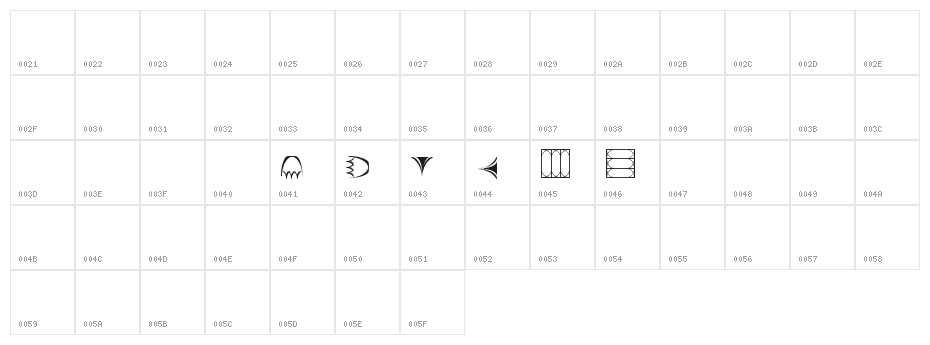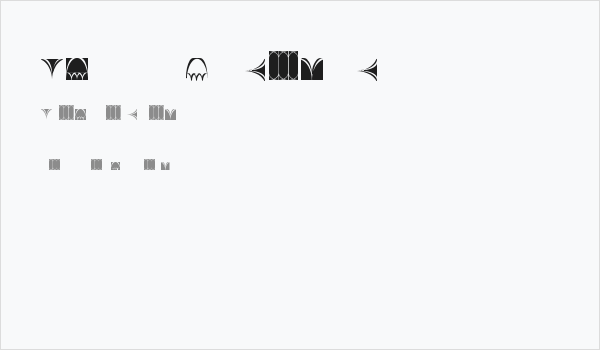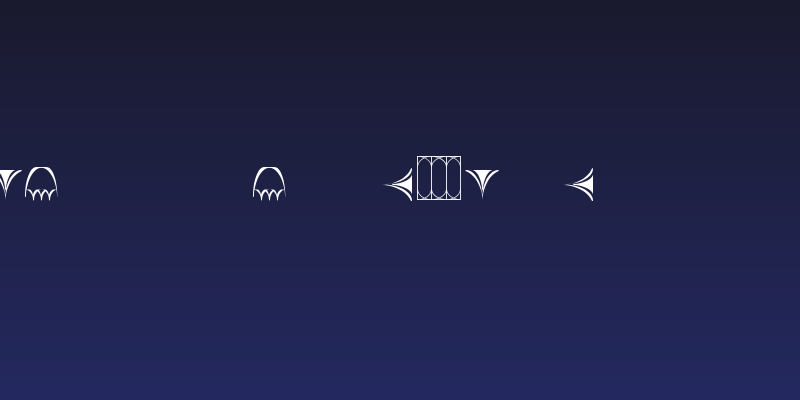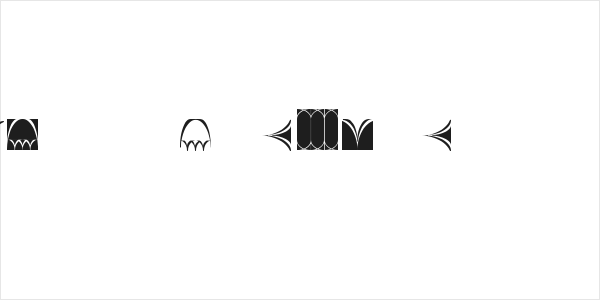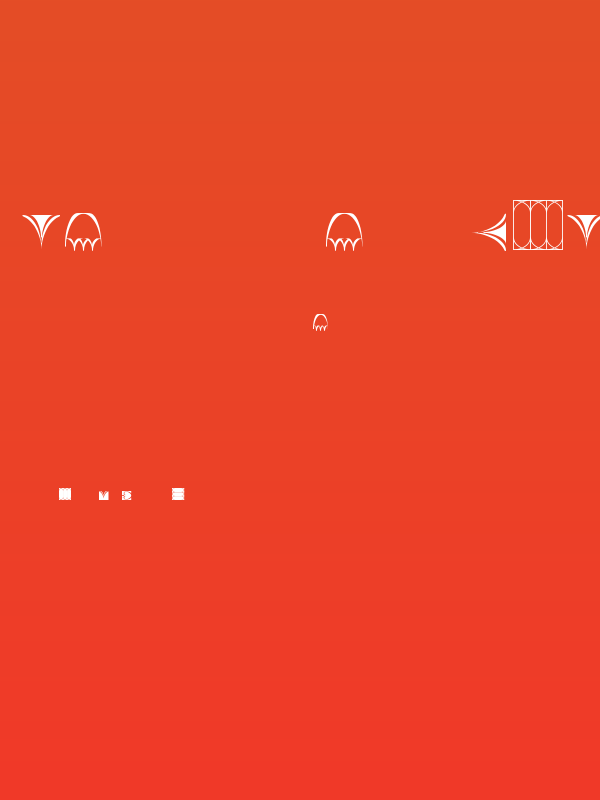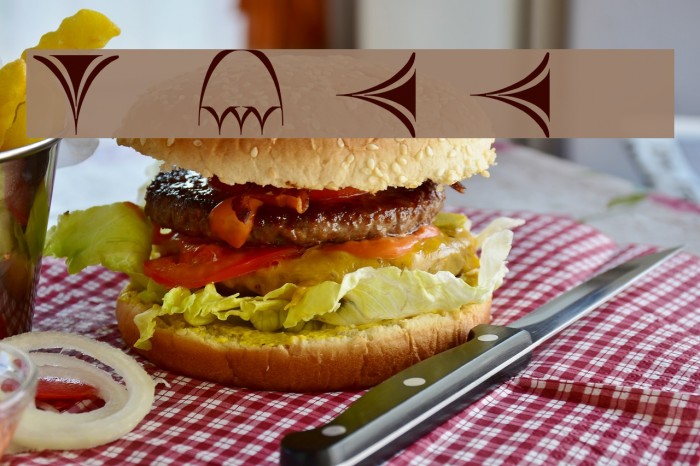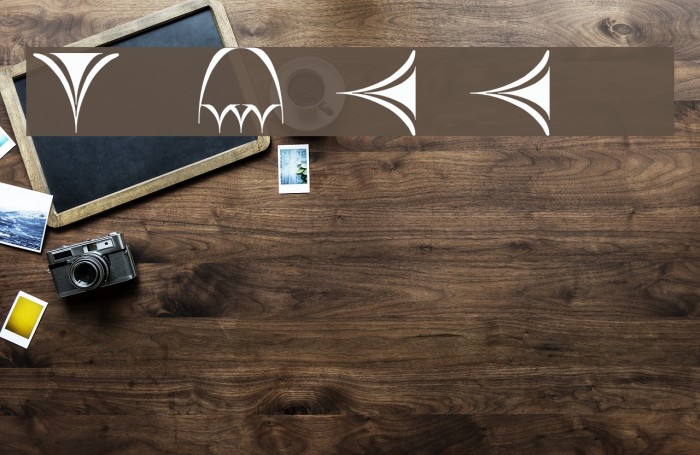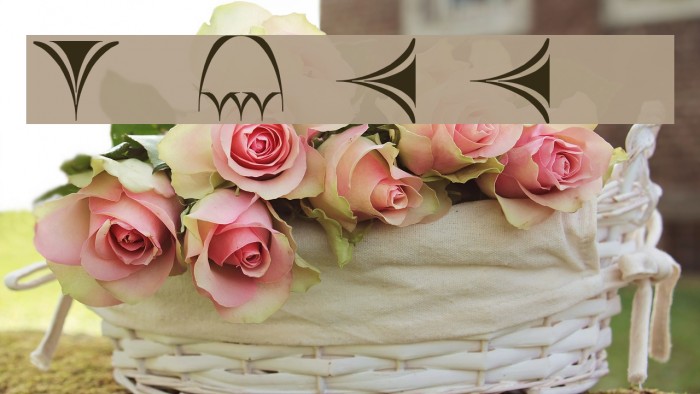
Cathy's Art Deco Dings LT Font
Cathy's Art Deco Dings LT Description
This font is a decorative typeface with a distinct Art Deco influence. It features bold, geometric shapes and intricate patterns that are reminiscent of the 1920s design style. The characters are highly stylized, with each letterform incorporating unique ornamental elements that create a sense of elegance and sophistication. The font's design is both artistic and functional, making it suitable for a variety of creative projects. Its boldness and decorative nature make it stand out, capturing attention with its intricate details and symmetrical forms.
| Overall Style | Vintage, Decorative |
| Use Case | Logos, Headlines, Posters |
| Proposed Projects | Ideal for vintage-themed posters, luxury branding, wedding invitations, and artistic projects requiring a touch of elegance. |